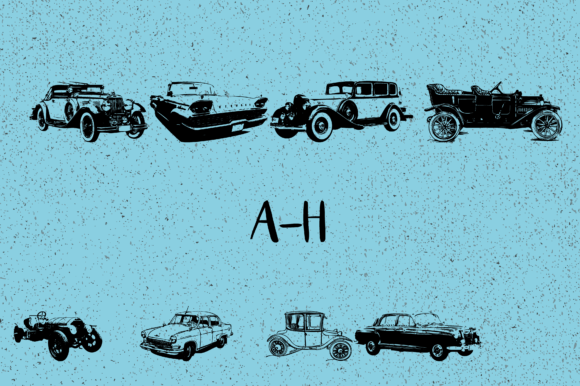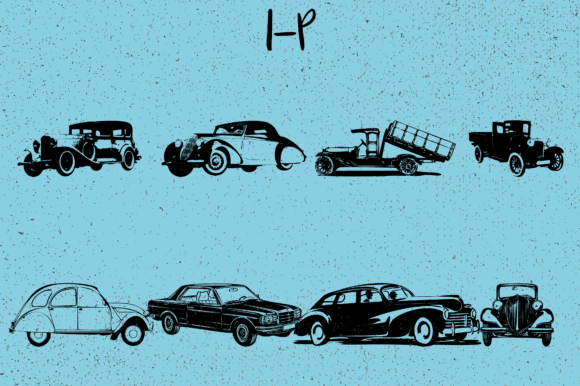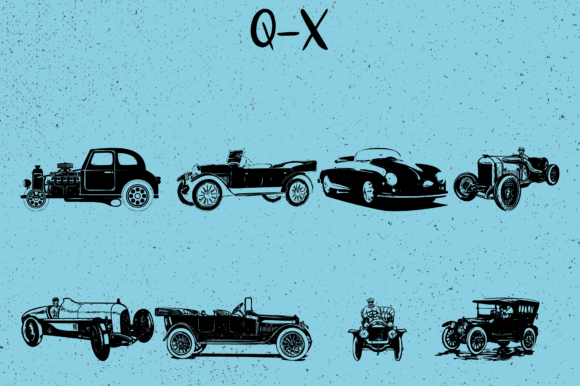
About Automobile Font
Automobile is an eye-catching and original dingbat font that will help you take your designs to the next level. Its vintage and stylized illustrations make it perfect for a wide range of projects that need a vintage and nostalgic touch, from designing a retro and charming business card to adding a cool and unique flair to a logo or other visual element. Whether you’re using it for crafts, digital design, presentations, or making greeting cards, Automobile is a unique and memorable font that has the potential to become your favorite go-to font for any occasion.
One of the best things about Automobile is its variety of cool and stylized illustrations. The many vintage cars and trucks make Automobile a one-of-a-kind font for projects that need a unique and memorable look. Whether you’re designing a business card for a nostalgic car company or adding a cool and unique flair to a logo, Automobile will add a touch of character and originality to your design.
Another great thing about Automobile is how easy to use it is. With a few keystrokes, users can create a wide range of cool and memorable designs. The many vintage illustrations make Automobile easy to read and use, while its vintage style makes it perfect for a wide range of projects. All in all, Automobile is a memorable and stylish font that will help you create unique and original designs for a wide range of projects that need a cool and vintage twist.